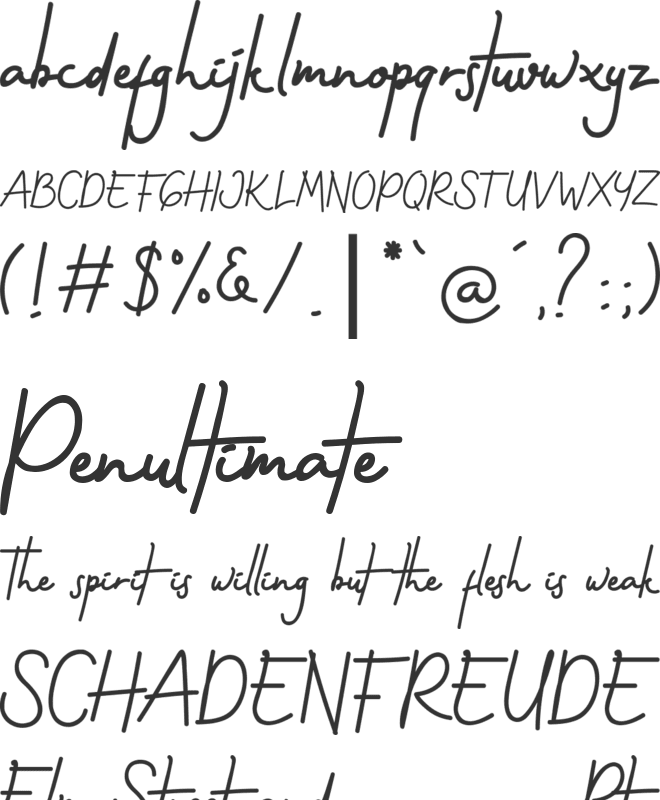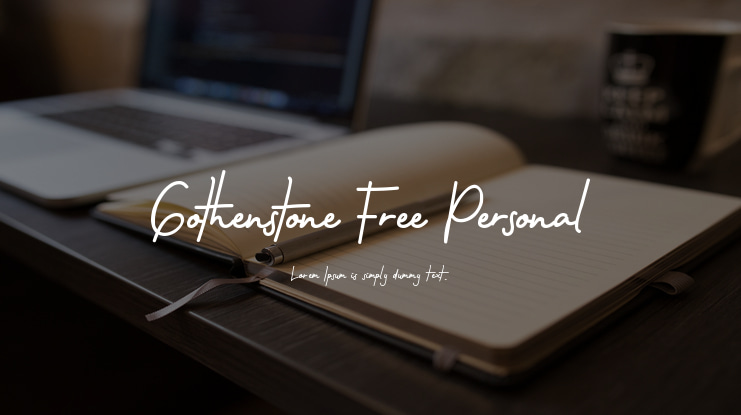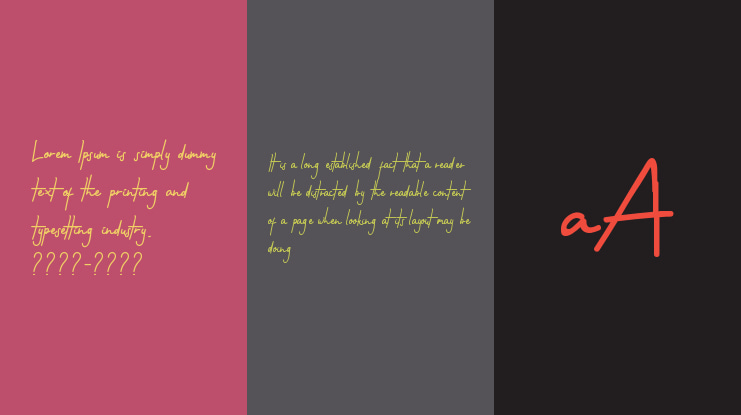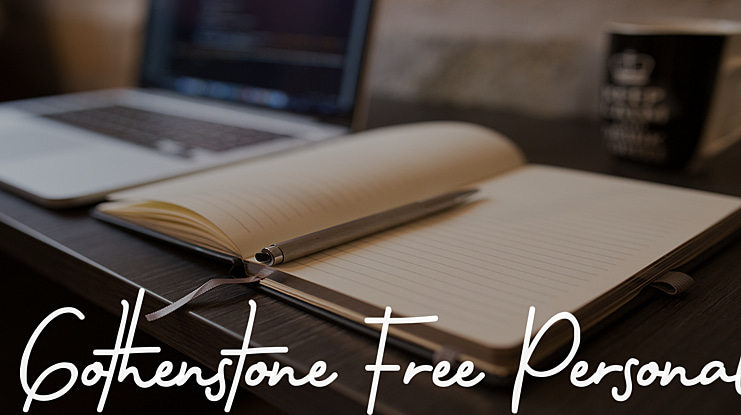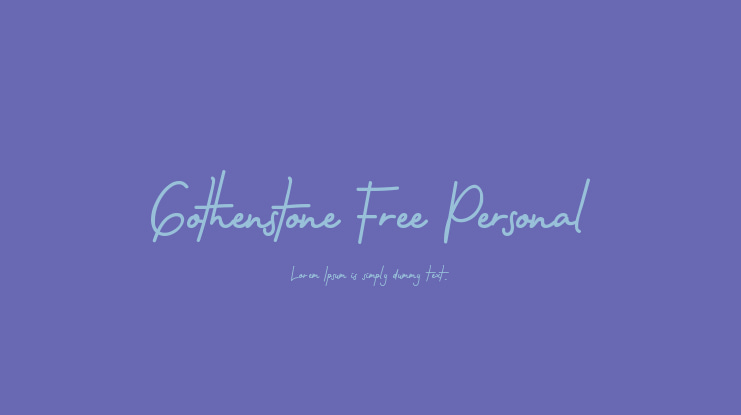
Gothenstone Free Personal Font
Introducing my new font project, it's Signature font called Gothenstone. The Gothenstone is an amazing signature font. It has a natural look and will add a personal touch to your design.
This font is very suitable for Signature logo, Wedding invitation, Birthday invitation, Greeting card, quote, Headline magazine, Clothing, Poster, Stationary and many other project design.